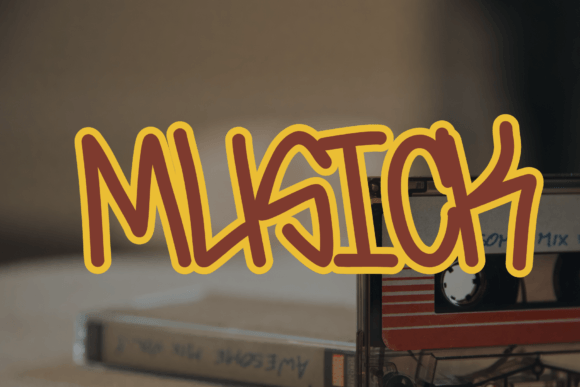
Welcome to the realm of Musick, a captivating graffiti display font that ignites imagination and captivates hearts. This remarkable creation of nstudio design is a masterpiece that breathes life into your designs, adding a touch of playfulness, energy, and vibrancy.
With Musick, your words take on a new persona, expressing your ideas with an artistic flair that draws attention. Its bold and confident strokes command presence, while the carefully crafted details add depth and character to your designs. Let Musick be your voice, speaking volumes through its unique style.
Picture your designs transformed, infused with the spirit of Musick. Logos burst with personality, wedding invitations exude charm, social media posts captivate audiences, and product packaging radiates creativity. Musick elevates your branding, making your products stand out on shelves and online.
Whether you're a seasoned designer or simply seeking to add a touch of magic to your projects, Musick is your perfect companion. Its versatility knows no bounds, adapting effortlessly to a myriad of applications. Make a statement on T-shirts, add a touch of whimsy to your photography, or create stunning watermarks that leave a lasting impression.
With Musick, the possibilities are limitless. It's the ultimate font for those who dare to be different, who embrace individuality, and who seek to make a statement with their designs. Unlock the world of creativity and let Musick ignite your imagination.